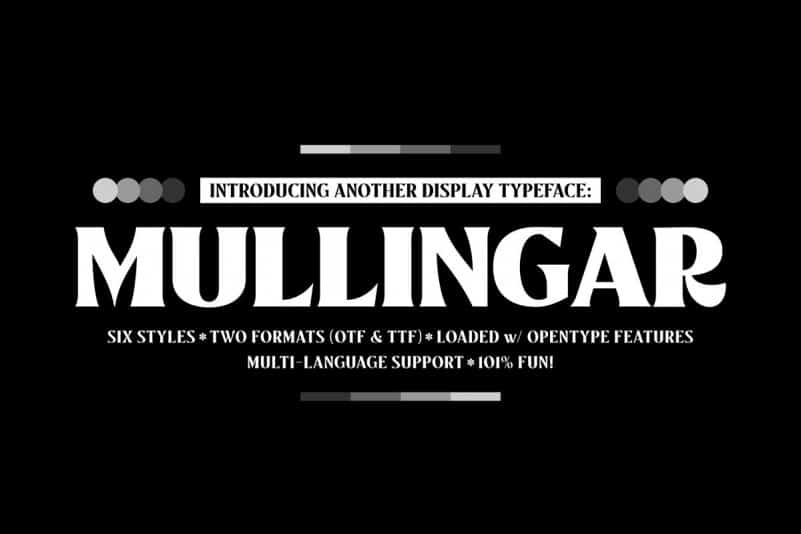
Mullingar Serif Font
Introducing Mullingar, our latest submission to the display typeface’s world library. Heavily inspired by the letters that are used in old/classic advertisements and signpainting culture, with a little magic touch of modern twist to keep this family relevant.
Mullingar letterforms were built from bold and blocky base, unique serif combinations, clean plus smooth curves, and sharp edges. Available in six styles (Regular, Bold, Light, plus Slanted in each version), that guaranteed to give you joy in designing.